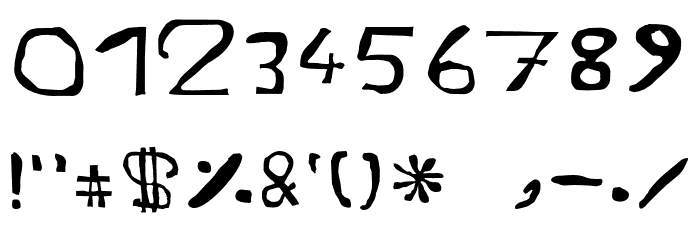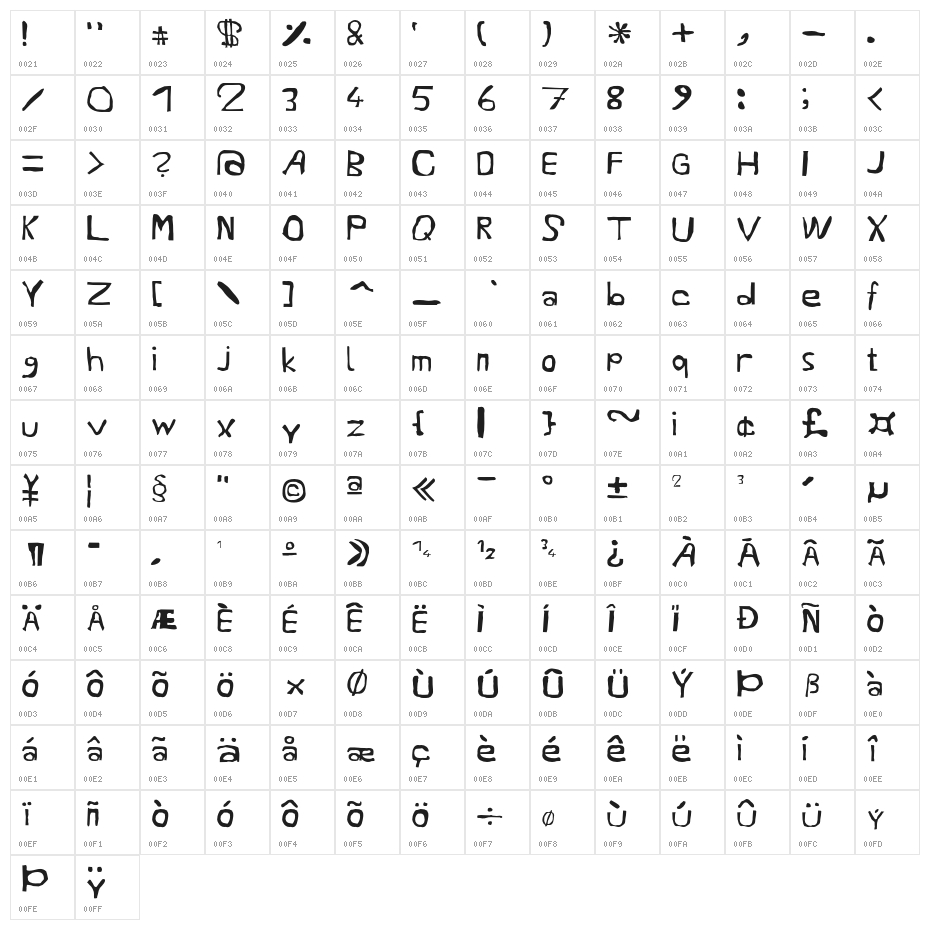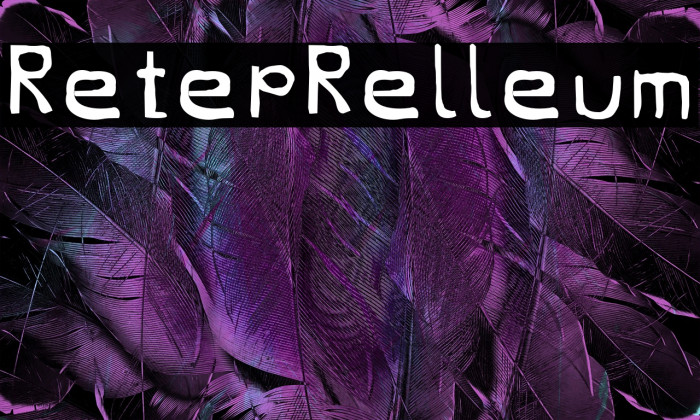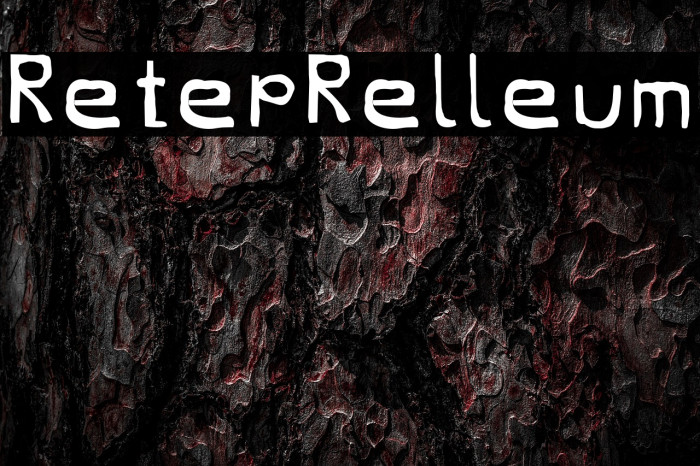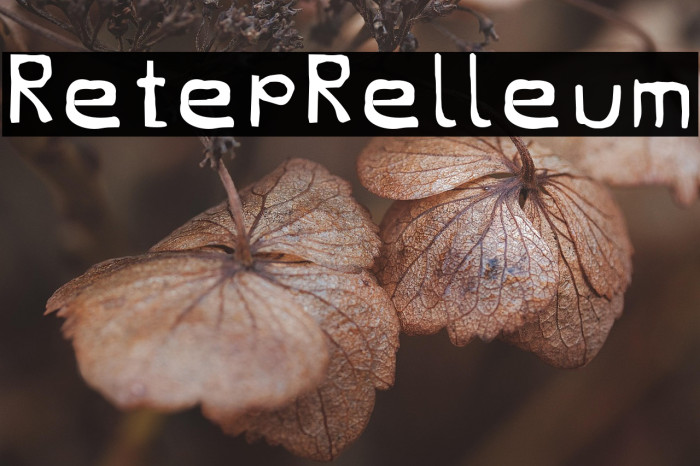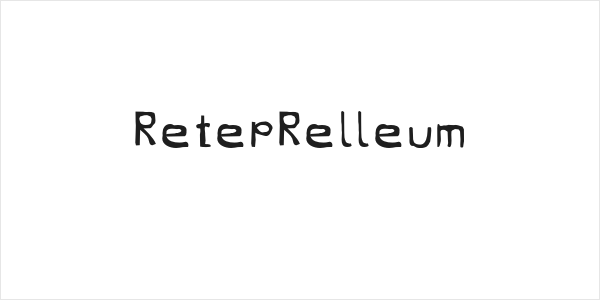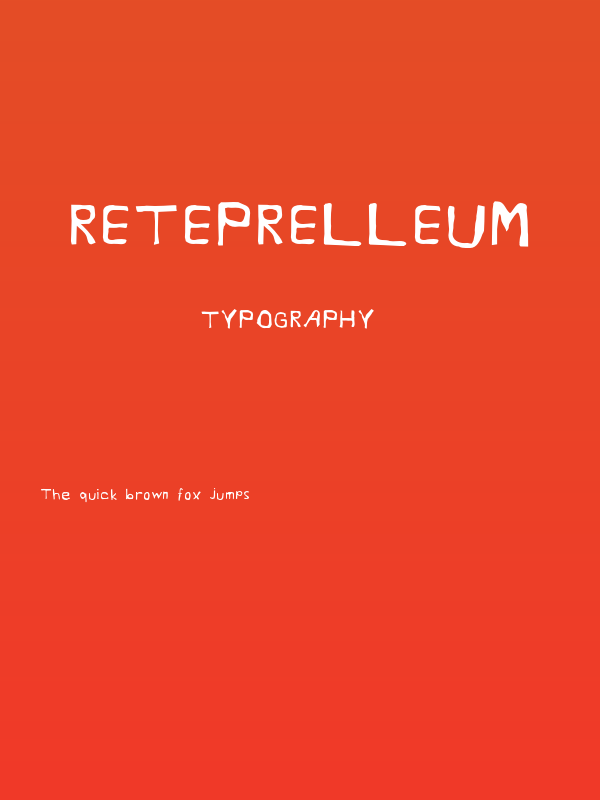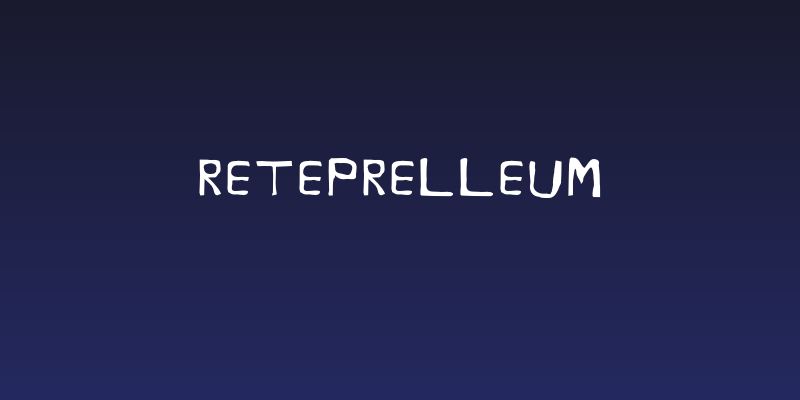
RetepRelleum Font
RetepRelleum Description
This font exhibits a playful and informal style, characterized by its hand-drawn appearance. The letters have an uneven, organic quality, with varying stroke thicknesses that add to its casual charm. The uppercase and lowercase letters maintain a consistent style, with rounded edges and a slightly irregular baseline, giving it a whimsical feel. The numerals and special characters follow the same design ethos, ensuring a cohesive look across all characters. This font's unique personality makes it stand out, ideal for projects that require a touch of individuality and creativity.